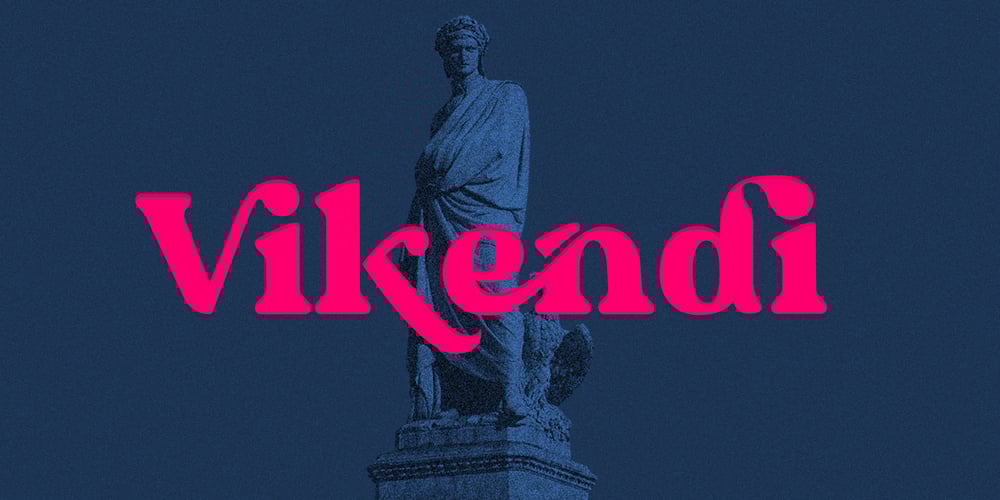
Vikendi Font Family was designed by Muhammad Afif Ersya and published by Mevstory Studio. Vikendi contains 1 styles and family package options. Introducing ThelmaClassic Sans Serif Font , created by Lettercorner Studio.Thelma is a traditional font for the classic sans serif type. A simple font, with a thin size, adds an elegant and classy impression. This typeface is perfect for an elegant logo, branding, travel promotion, layout magazine, beauty product, packaging product, quotes, or simply as a stylish text overlay to any background image.What’s included?:: Regular:: Uppercase & Lowercase:: Number & Punctuation:: Multilingual Support:: Works on PC & Mac